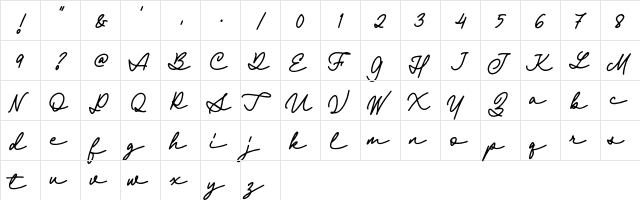
Fairyland Font Demo Regular
| Foundry | Runsell Studio |
| Designer | Saeful Maarif |
Design Context for Fairyland Font Demo Typeface
Fairyland Font Demo is a composed and adaptable typeface that performs quietly and consistently across a wide range of design contexts.